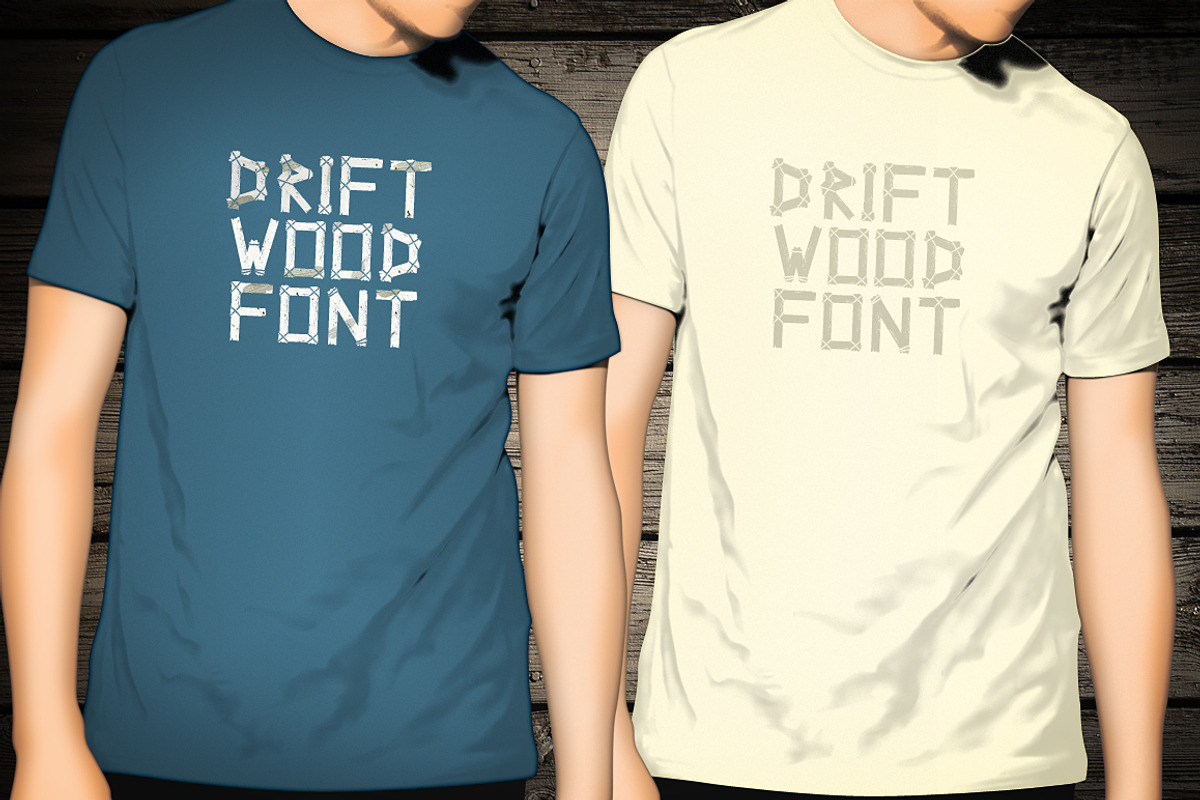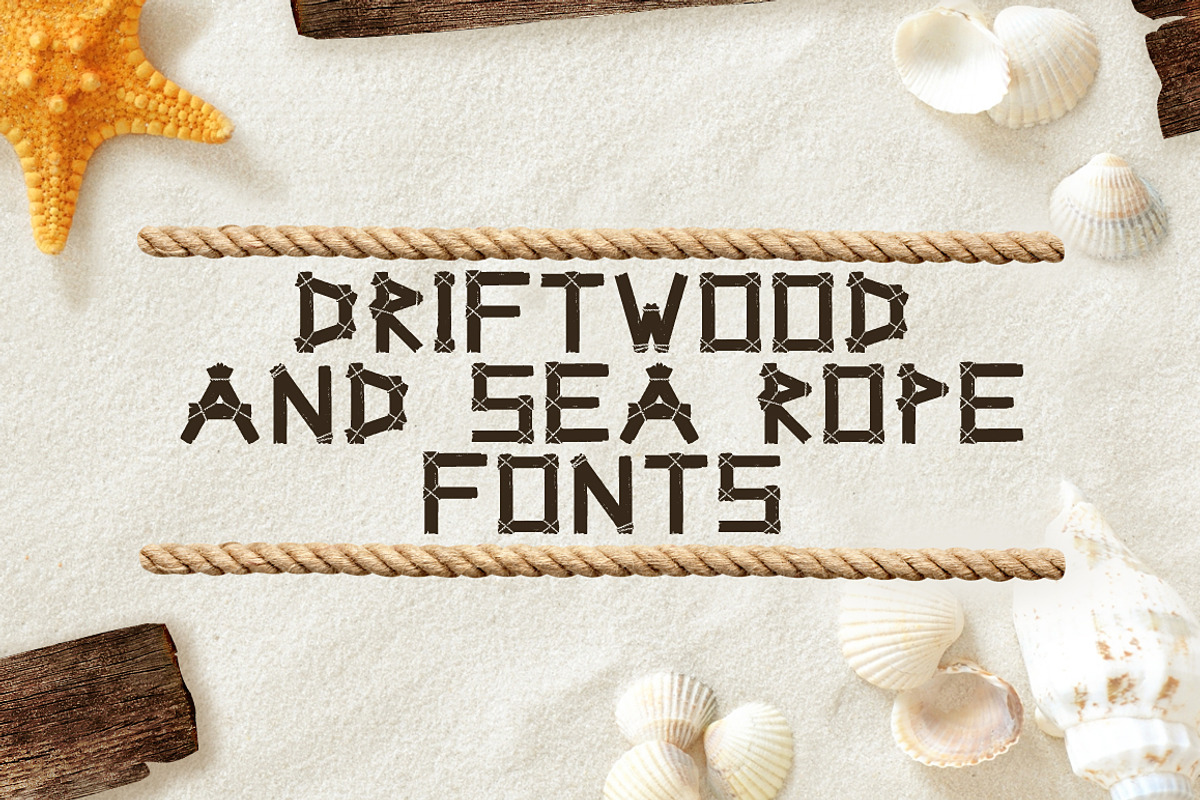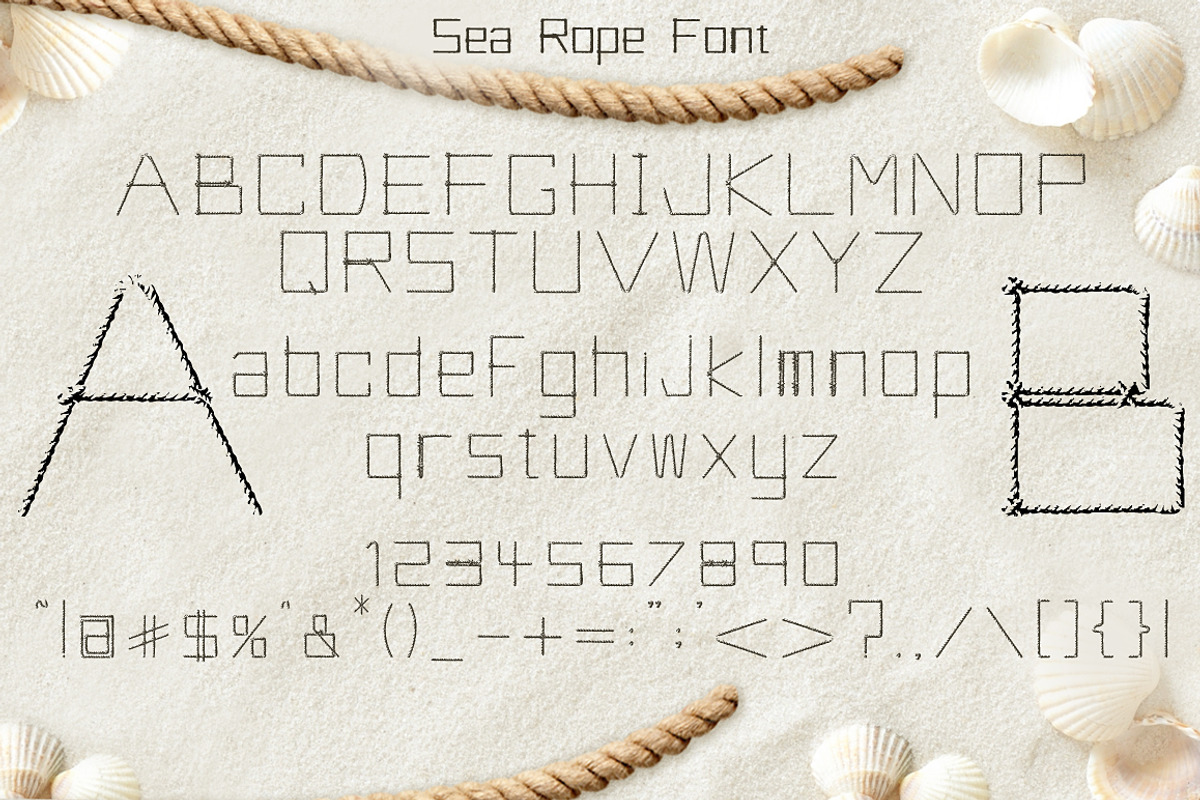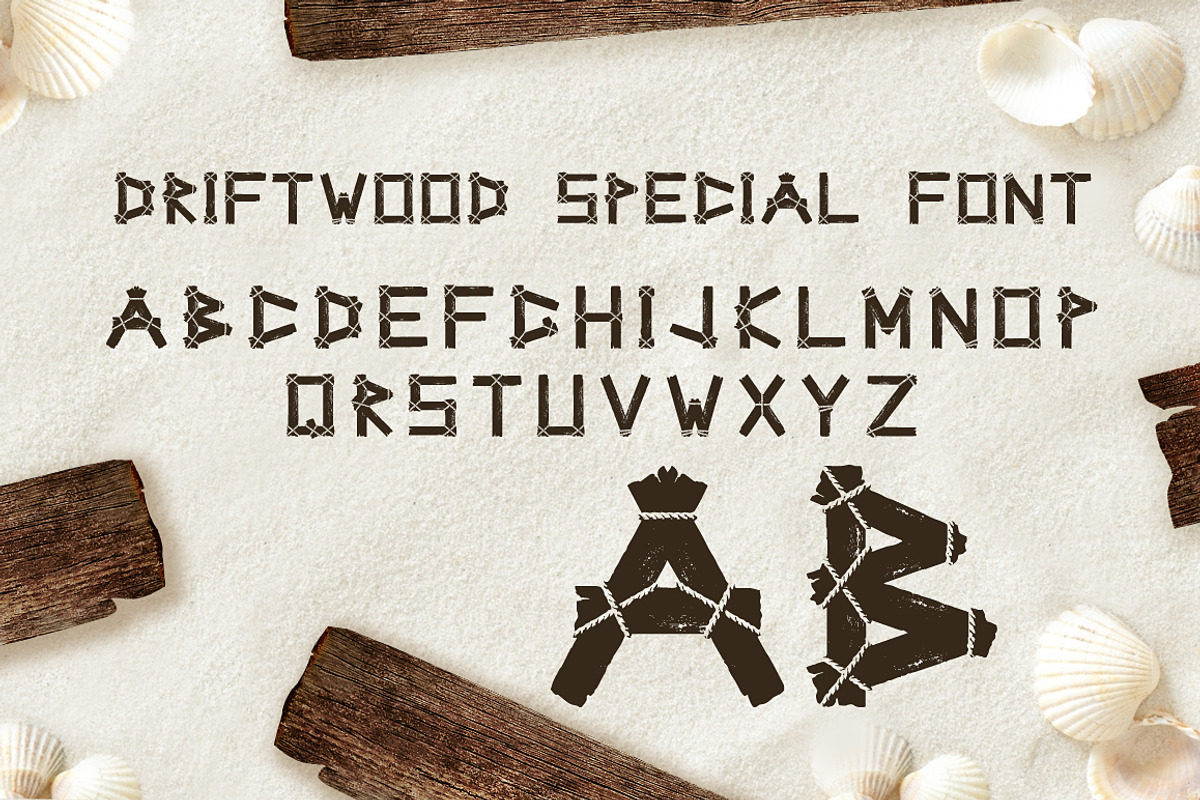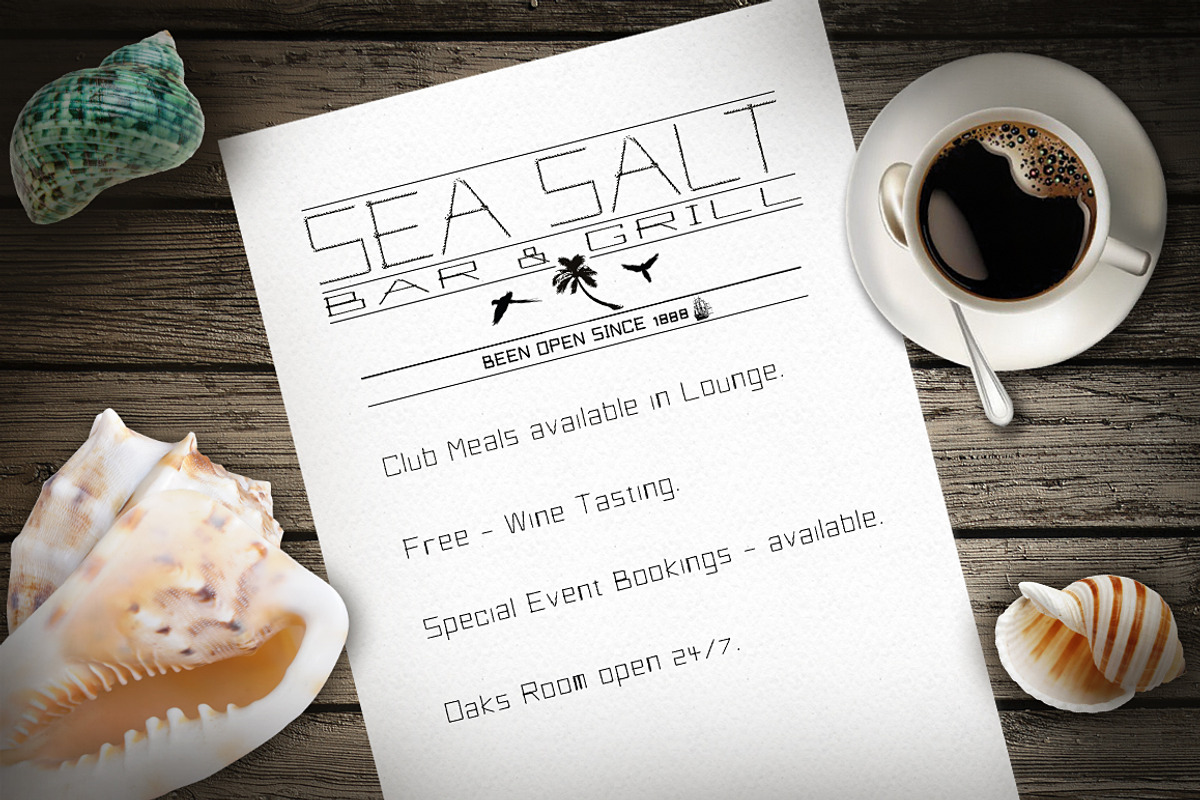
Driftwood & Sea Rope fonts
Driftwood & Sea Rope fonts by tmcom is a font selected for branding, posters, packaging, typography.
- This pack contains a full font set, and a display font set, for projects that require more oomph.
- Driftwood fonts, can be accessed in both lower and uppercase characters.
Why Driftwood & Sea Rope fonts is worth a look
Driftwood & Sea Rope fonts by tmcom fits naturally into Branding, posters, packaging, typography.